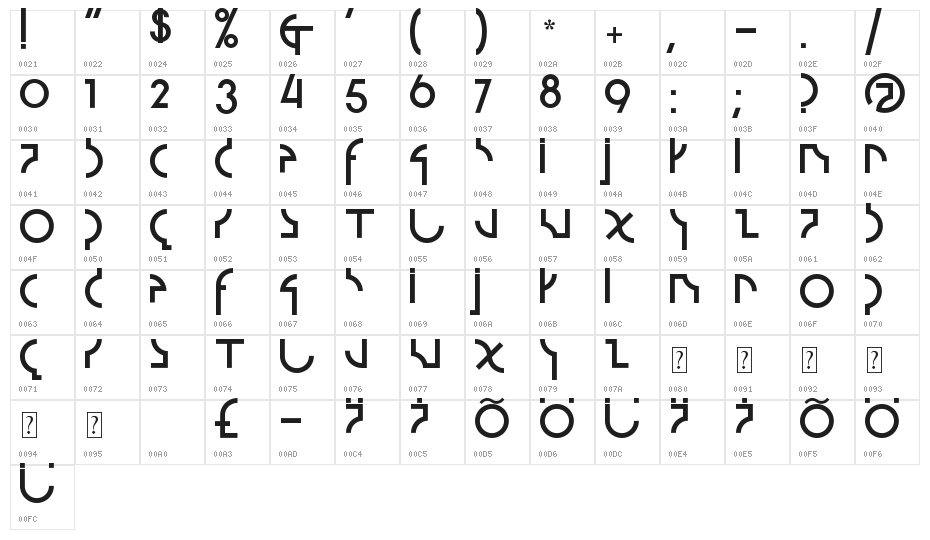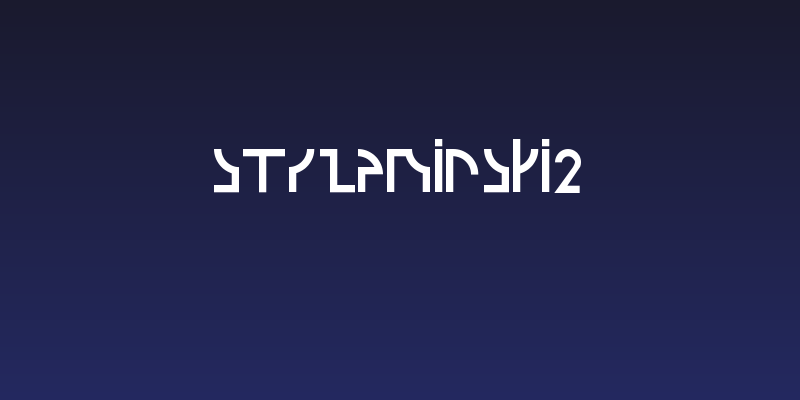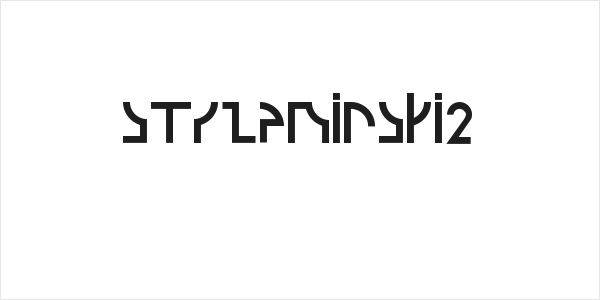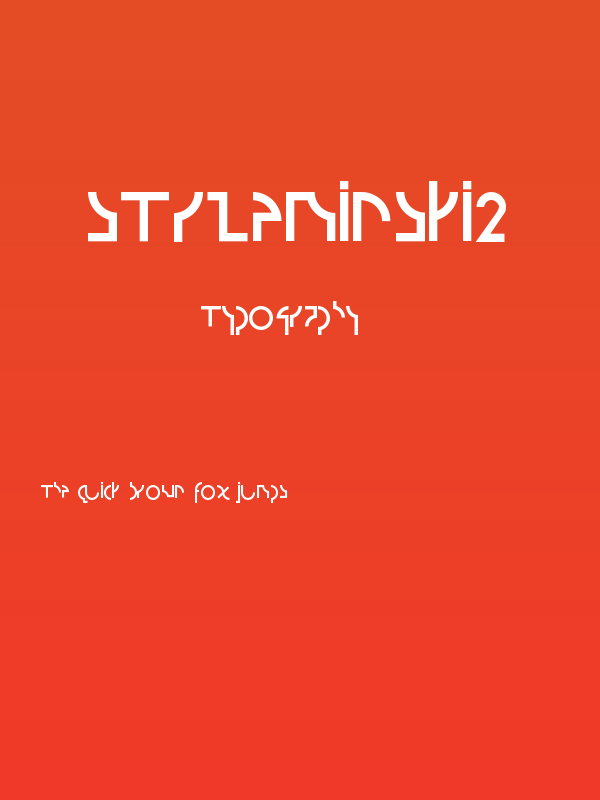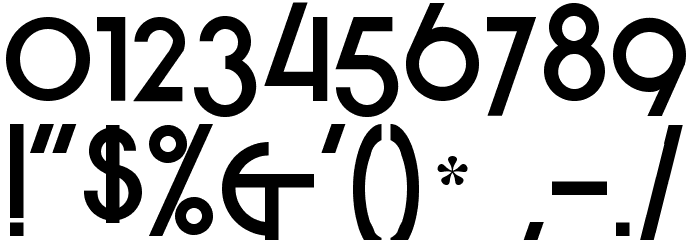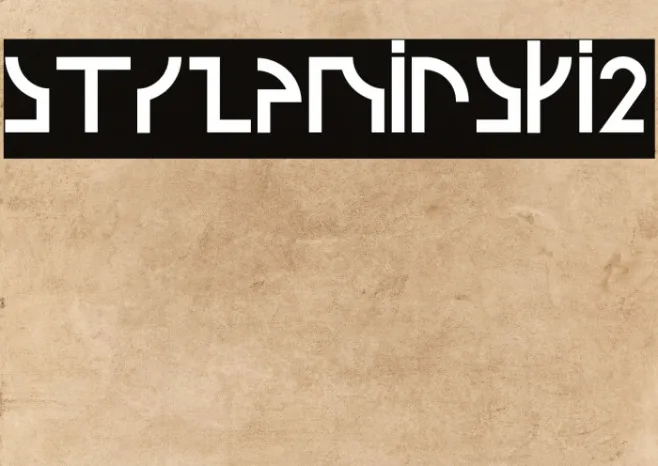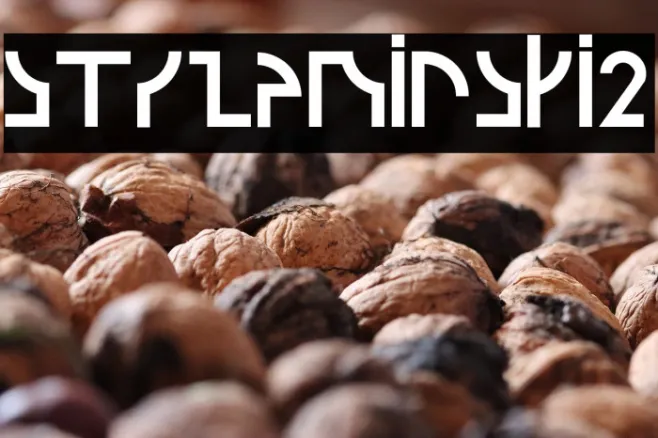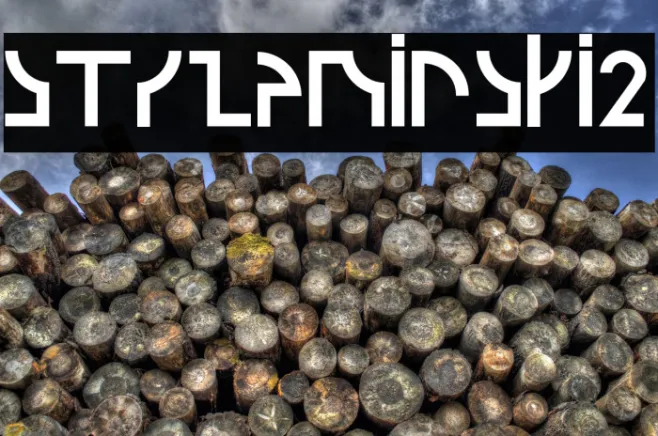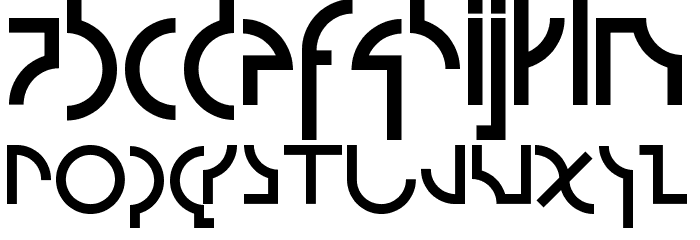
Strzeminski2 Font
Strzeminski2 Description
This font features a unique and modern geometric design with bold, angular shapes and clean lines. The characters are constructed with a combination of straight and curved elements, creating a futuristic and avant-garde appearance. The uppercase and lowercase letters maintain a consistent style, with a focus on symmetry and balance. The numerals and special characters follow the same design principles, ensuring a cohesive look across all glyphs. This font's distinct style makes it stand out, offering a fresh and innovative approach to typography.